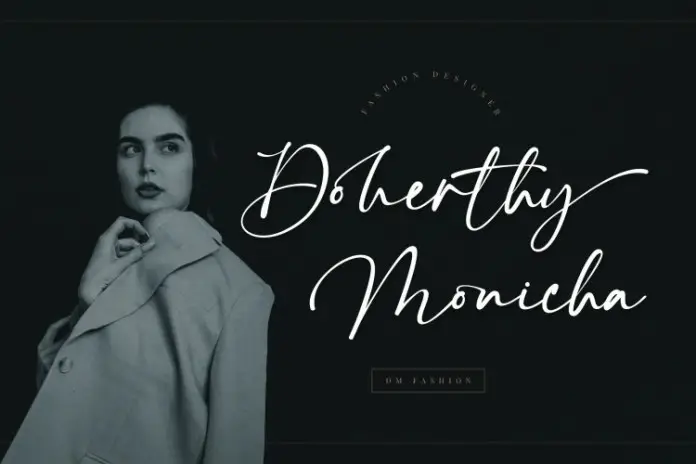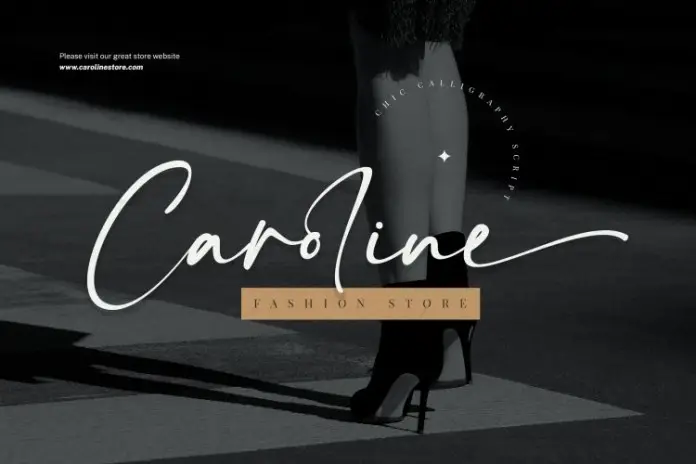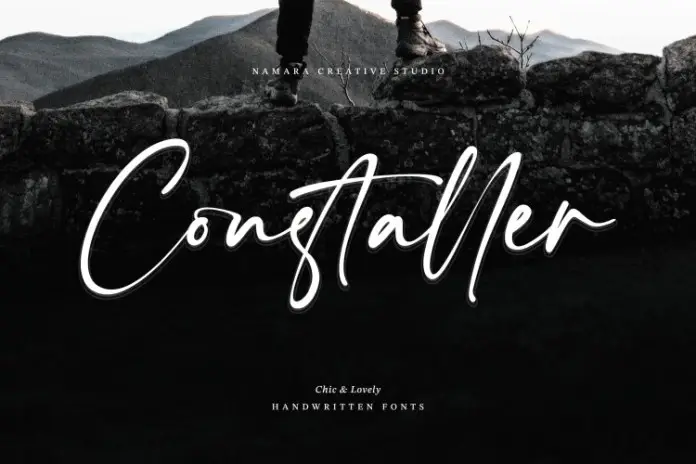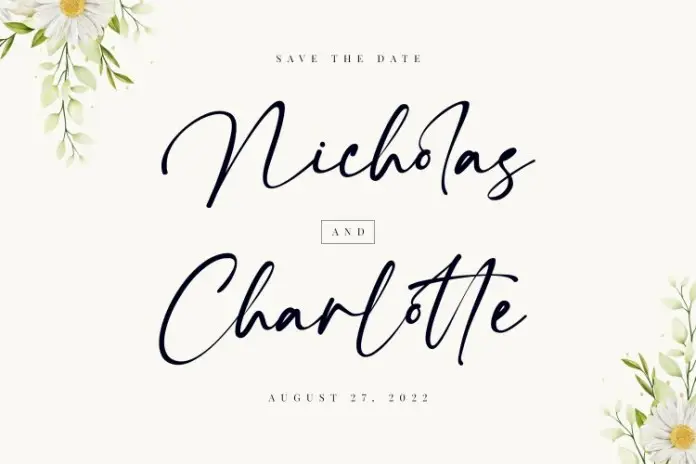
Constaller Script Font
The Constaller Script Font is a beautifully designed typeface that captures the elegance of handwritten script. Perfect for a variety of creative projects, this font features smooth curves and stylish lettering that can elevate your designs.
• Stylish script design
• Multiple weights for versatile use
• Ideal for branding and logo design
• Great for invitations, greeting cards, and other print materials
• Perfect for web design and UI applications